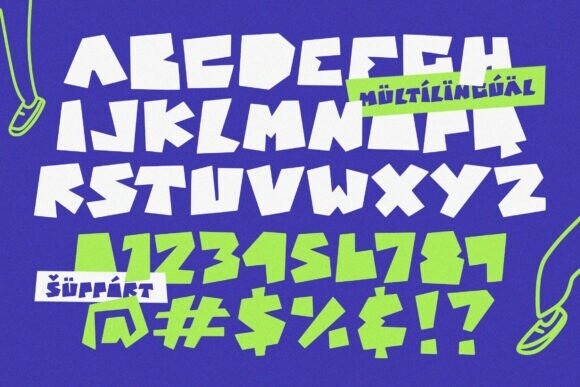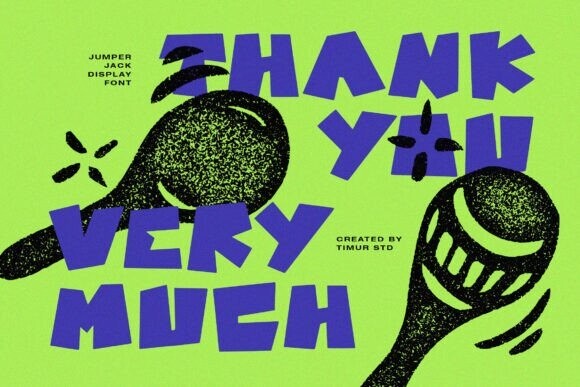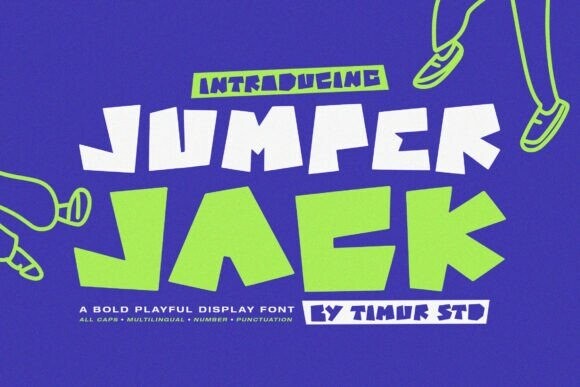
Jumper Jack Font
Designer: Timur type
Jumper Jack Font is a Bold Playful Display Font. This font is a bold and playful display font that exudes energy and charm. With its quirky, dynamic letterforms and lively character, it’s perfect for eye-catching designs, including posters, logos, packaging, and children’s projects. Jumper Jack adds a fun and energetic vibe to any creative work.